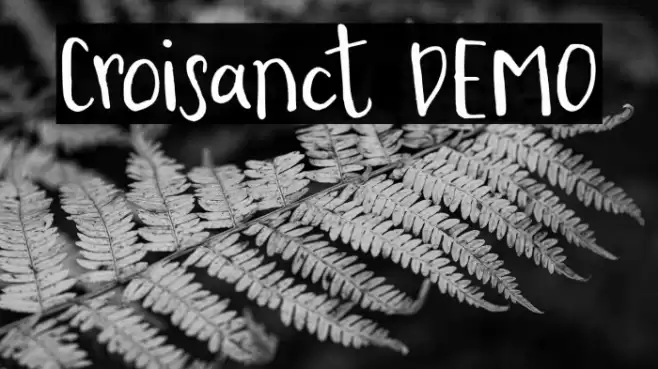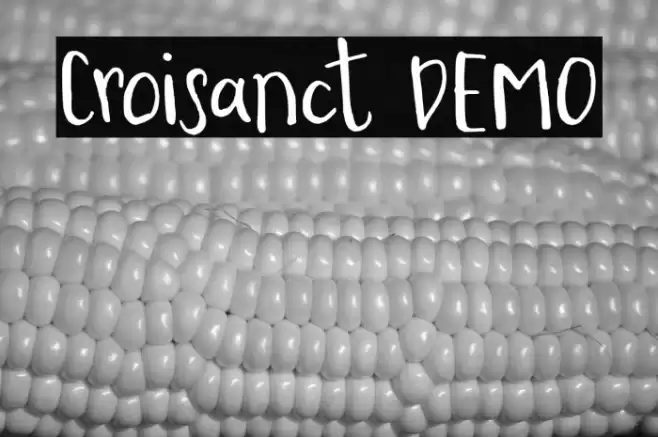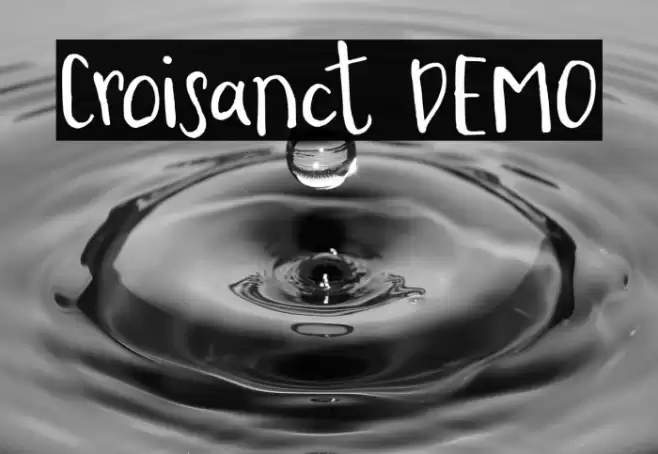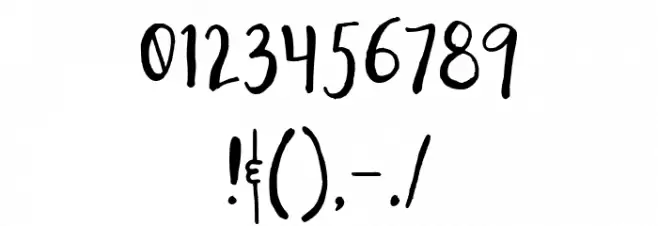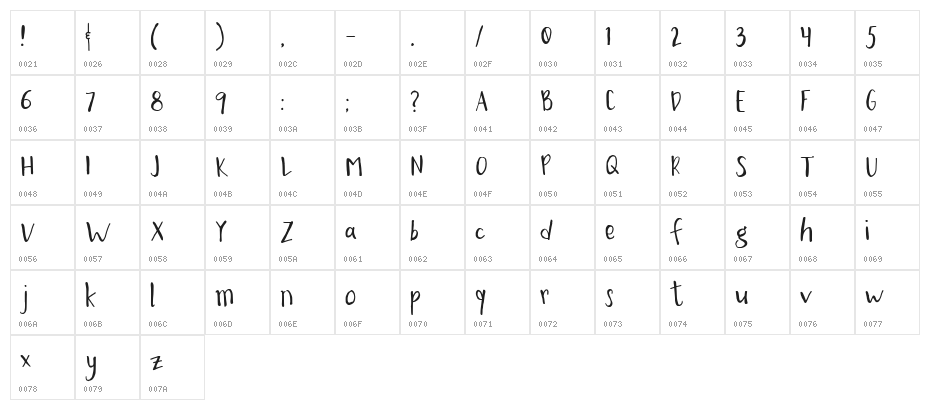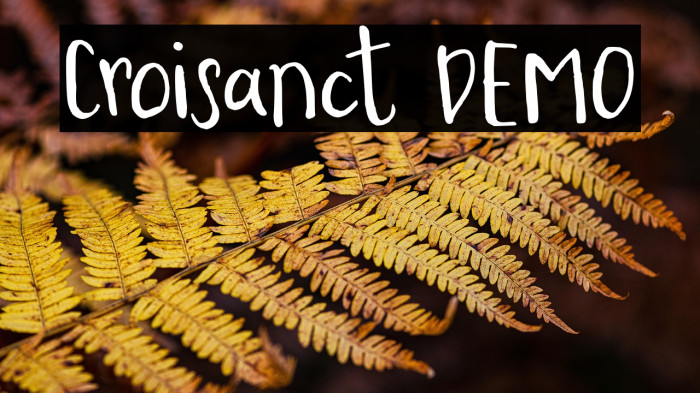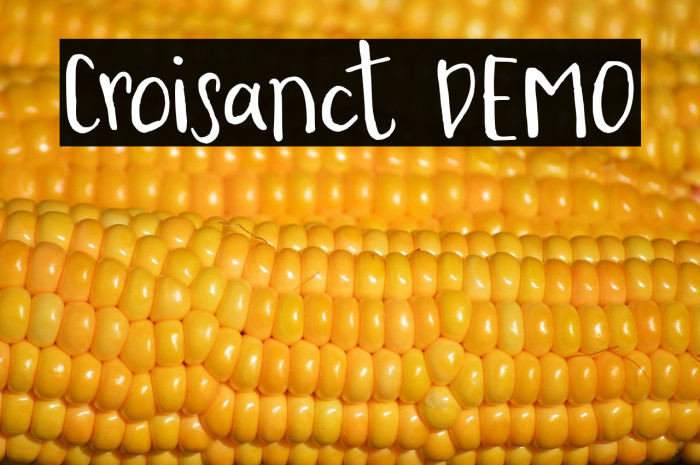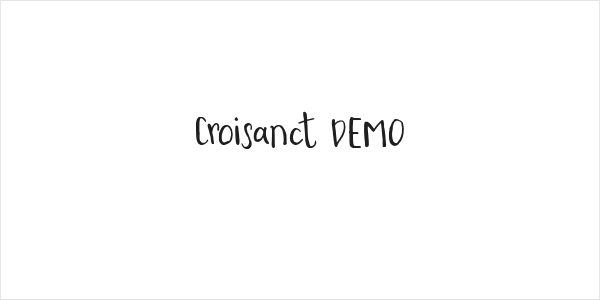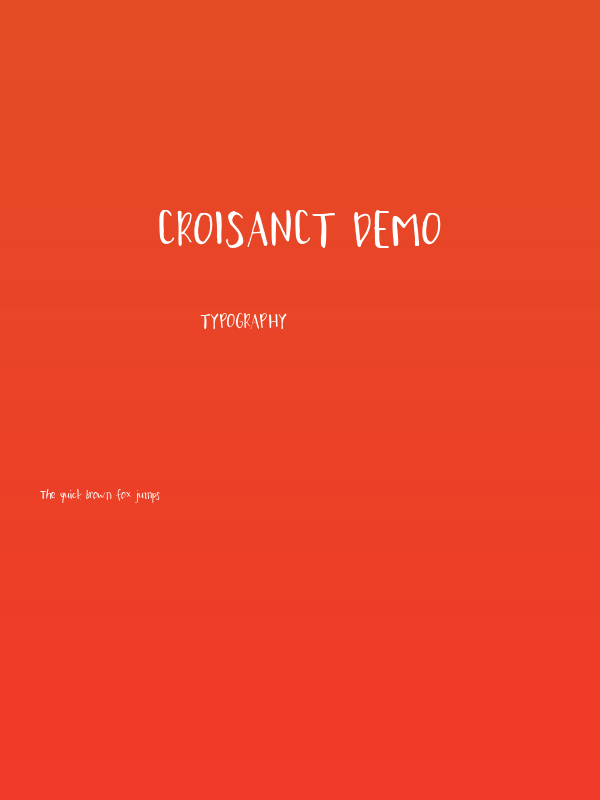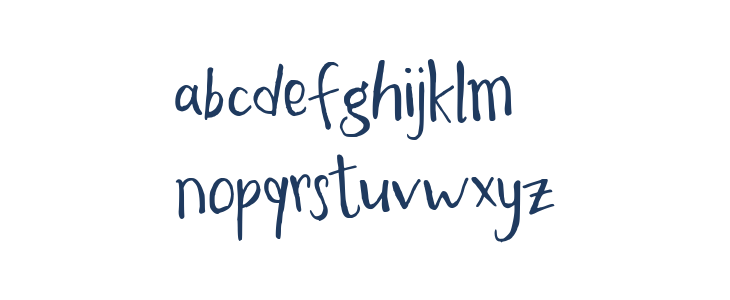
Croisanct DEMO Font
Croisanct DEMO Description
This font exhibits a playful and informal handwritten style, characterized by its irregular strokes and slightly tilted letters. The uppercase letters are bold and slightly elongated, giving a casual yet impactful appearance. The lowercase letters maintain a consistent flow with a natural, hand-drawn feel. Numbers are rounded and maintain the same playful aesthetic, while special characters are creatively styled to match the overall theme. The font's organic and friendly look makes it suitable for projects that aim to convey warmth and approachability.
A playful, handwritten font with irregular strokes and a casual style from Regular fonts.
- Font: Croisanct DEMO
- Proposed Projects: Ideal for greeting cards, children's books, personal blogs, and creative branding projects.
- Overall Style: Casual, Playful
- Use Case: Headlines, Informal Text, Creative Projects